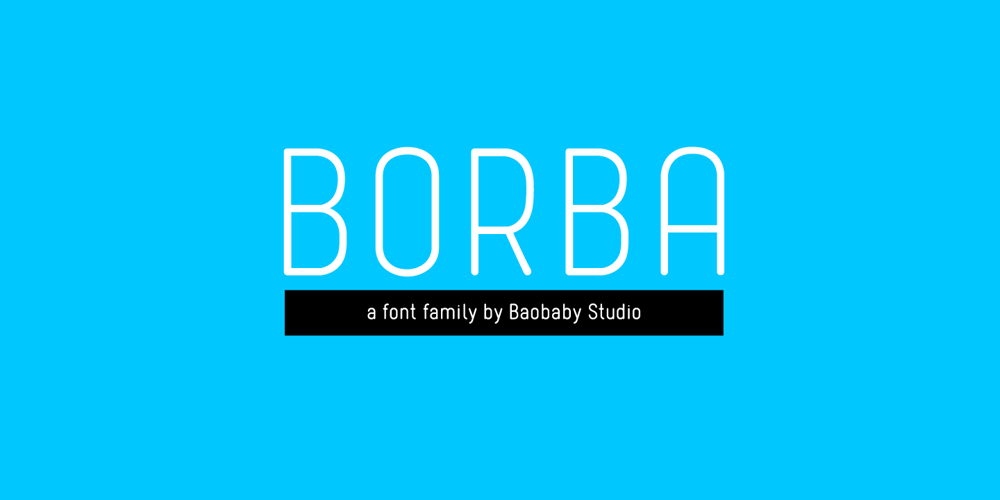
Borba Font Family was designed by published by Edyta Demurat. Borba contains 8 styles and family package options. Borba is light, fresh and friendly at first glace. It’s simple, modern and elegant due to its monoline and minimalistic form. It is really readable which makes it perfect for long texts but it looks great in titles and short sentences as well. To sum up, borba is a universal typeface which may be used whenever you need a stylish and modern typography.